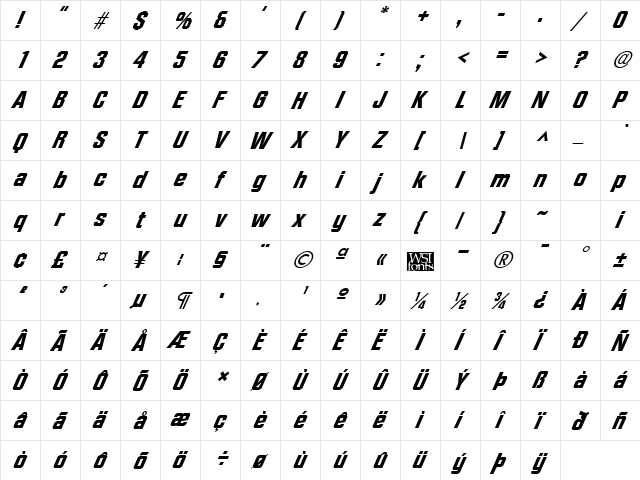
FacetHeavy-XXitalic Regular Font Preview
FacetHeavy-XXitalic Regular
Design Context for FacetHeavy-XXitalic Typeface
FacetHeavy-XXitalic takes a measured approach to typography — its balanced proportions and neutral character make it a reliable workhorse for both digital and print work. Its italic angle brings a sense of urgency and motion to the letterforms.
Pro Tip: Try FacetHeavy-XXitalic for annotation and caption copy alongside an upright companion — the contrast in angle creates a dynamic but ordered typographic system.